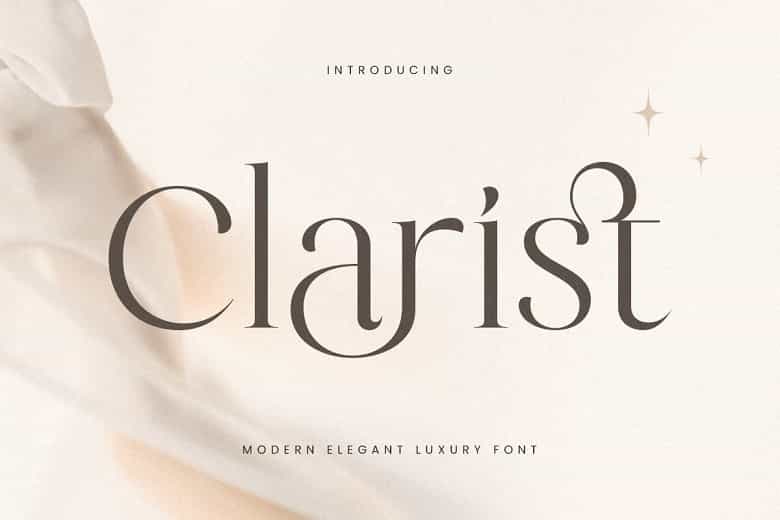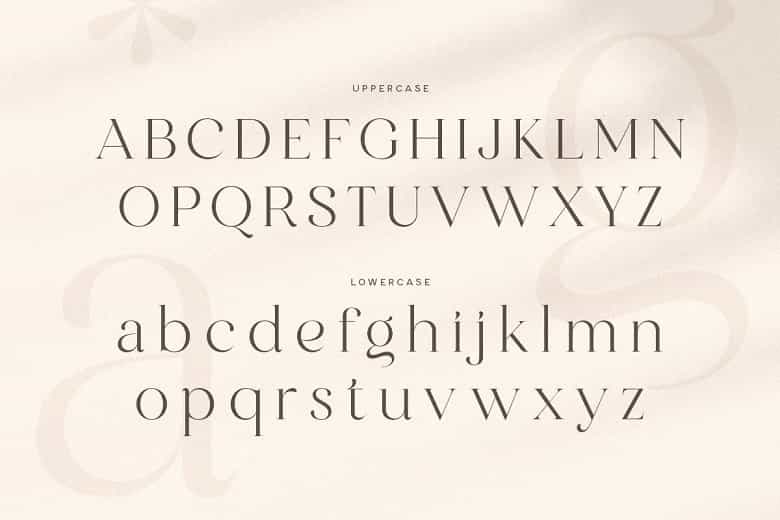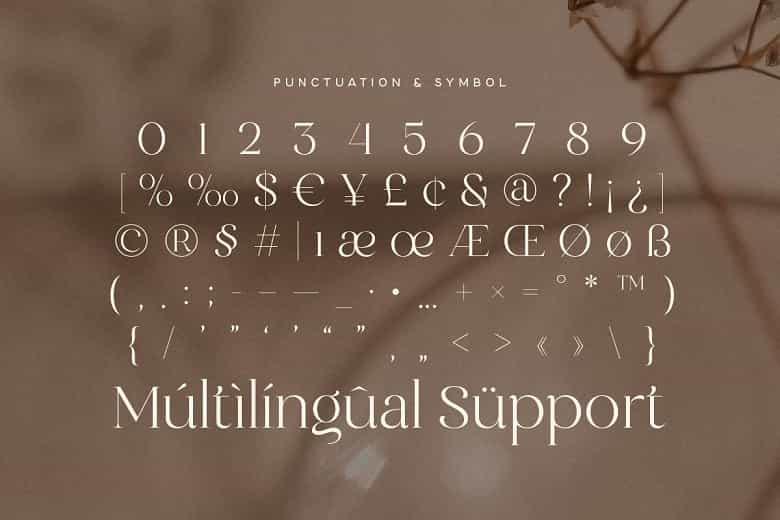
Clarist is a new modern serif typeface that can add glamour and sophistication to any project and make it look like a movie. Its well-curved characters are ideal for logos, brands, wedding, quotes typography, magazine or book covers, web headers, and high end magazines, adding elegance and class to your designs.